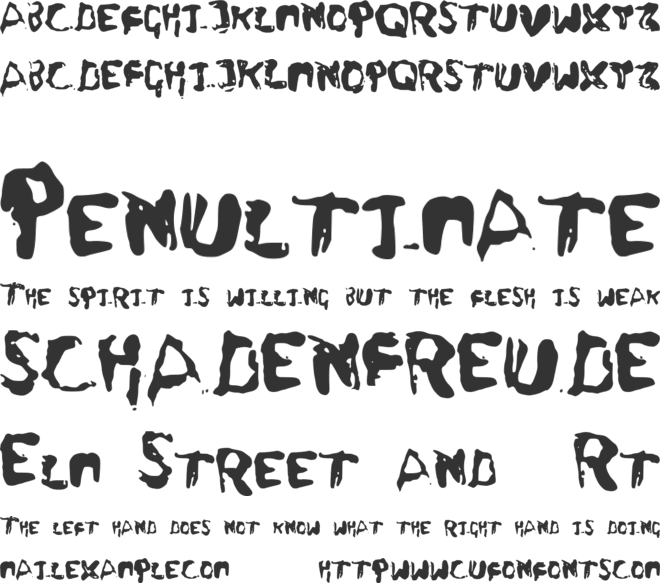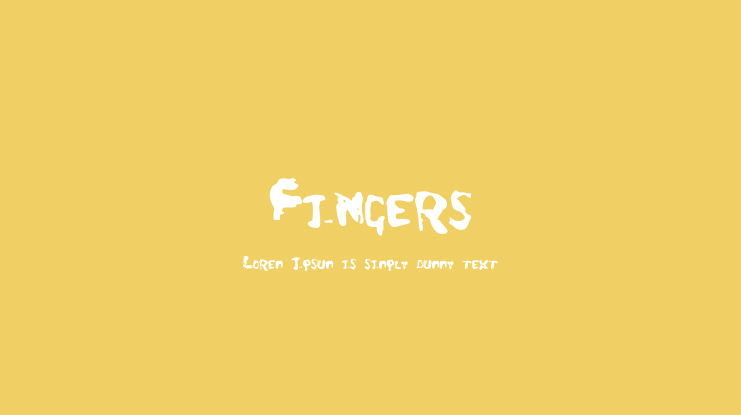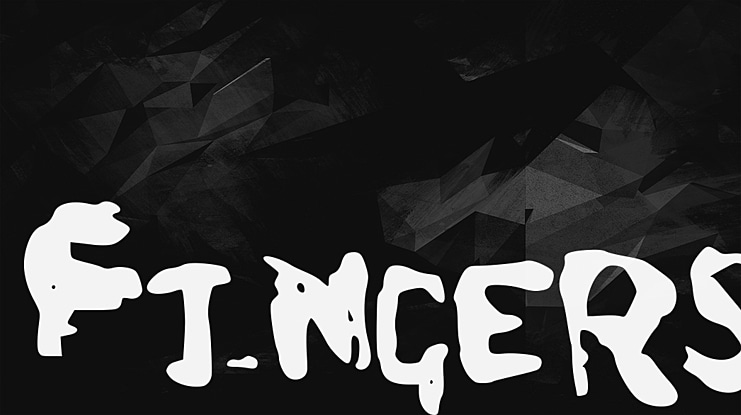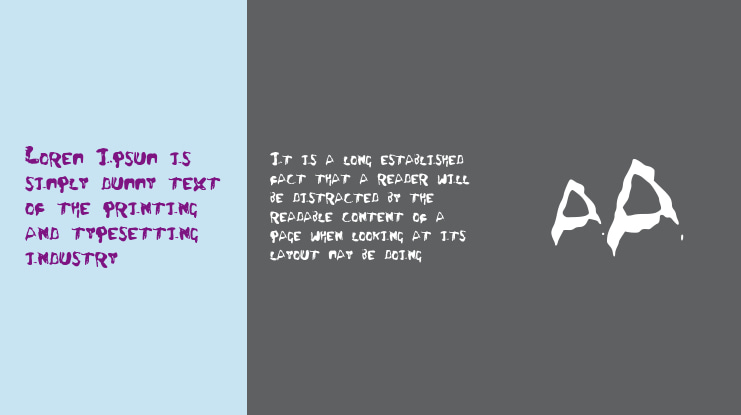
Fingers Font
This font only consists of upper and lowercase letters and will not be updated to include any other characters.
Perfect for titles on projects or presentations at school or college.